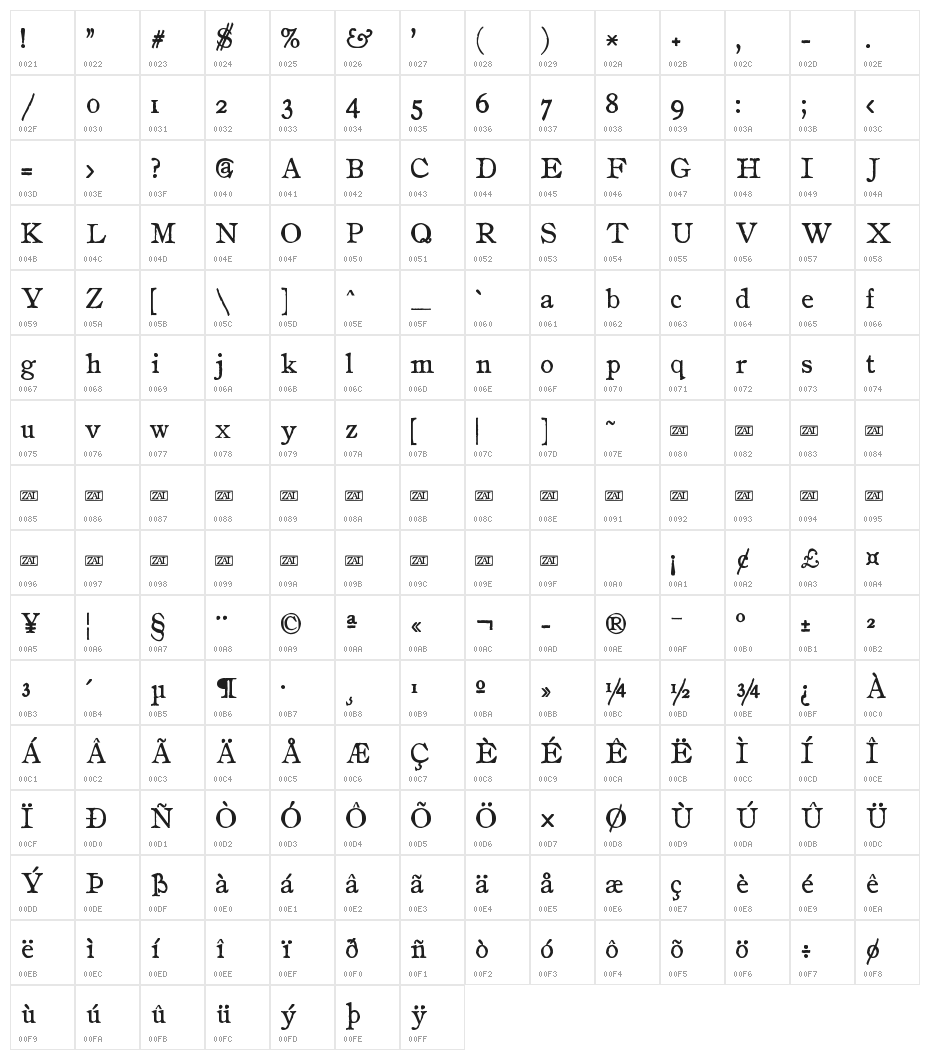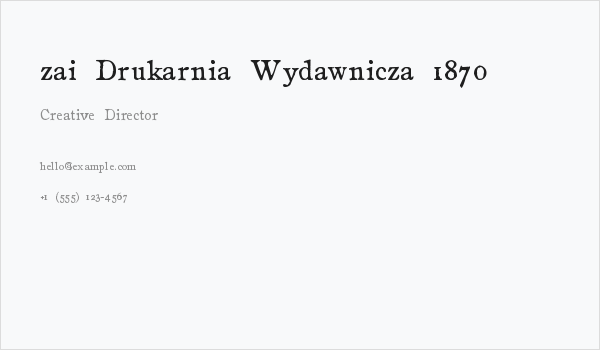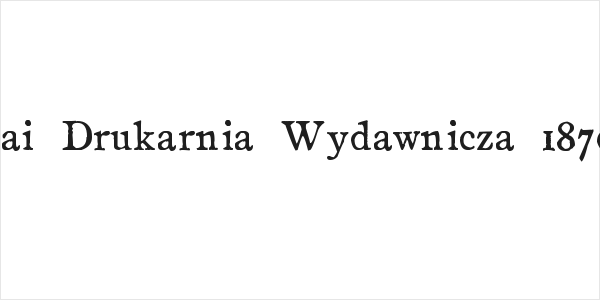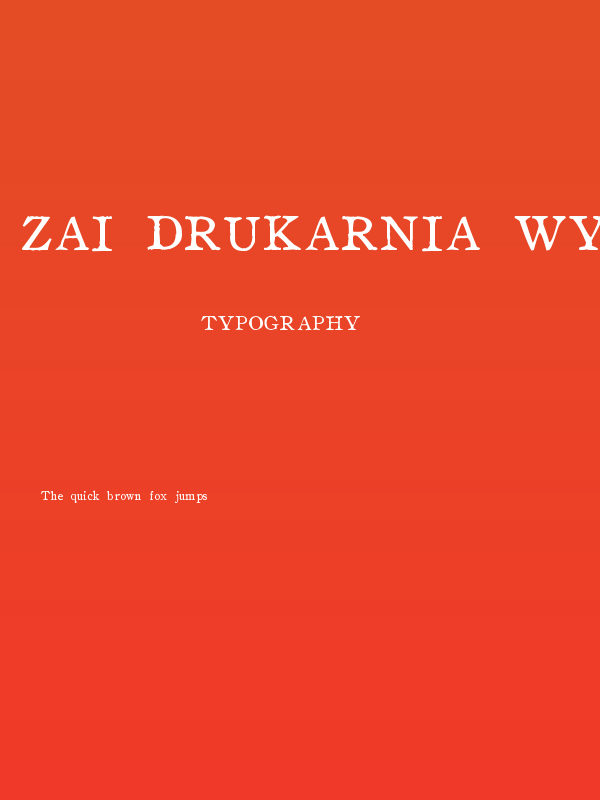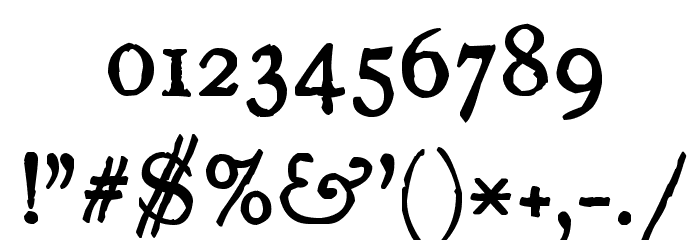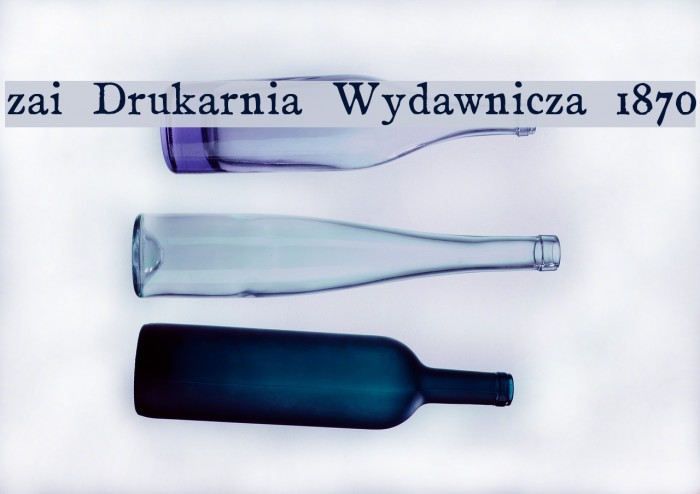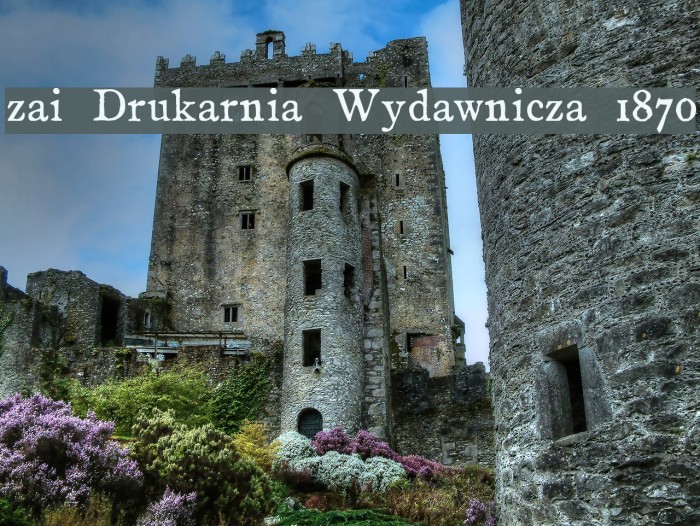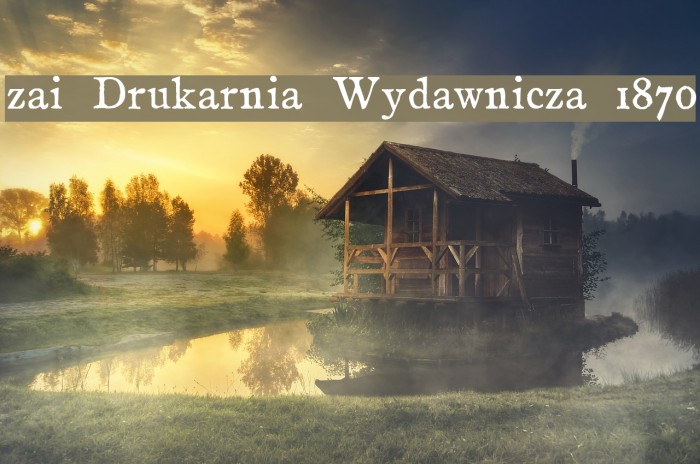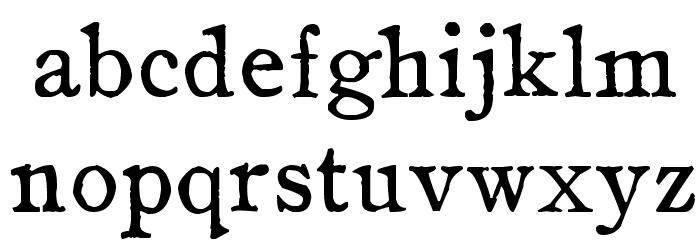
zai Drukarnia Wydawnicza 1870 Font
zai Drukarnia Wydawnicza 1870 Description
This font exudes a vintage charm with its bold, serif style that features slightly irregular edges, giving it a hand-crafted appearance. The uppercase letters are strong and commanding, while the lowercase letters maintain a consistent style with a touch of elegance. The numerals are clear and distinct, matching the overall aesthetic of the alphabet. Special characters are well-integrated, maintaining the font's cohesive look. The font's design is reminiscent of traditional printmaking, offering a sense of history and craftsmanship.
| Overall Style | Vintage |
| Proposed Projects | Ideal for projects that require a historical or artisanal touch, such as book covers, posters, or branding for craft products. |